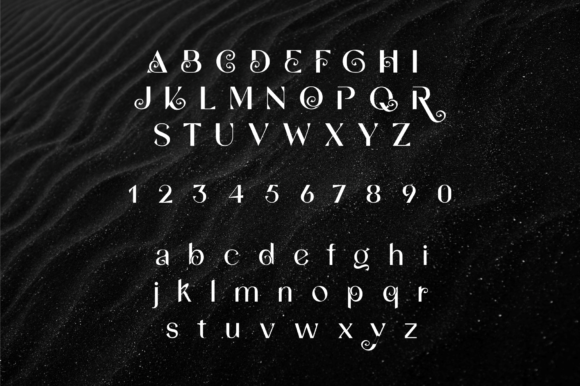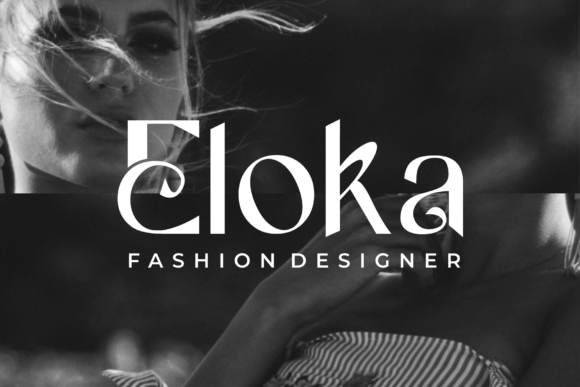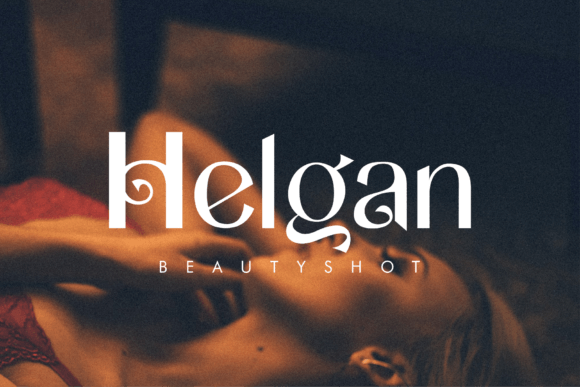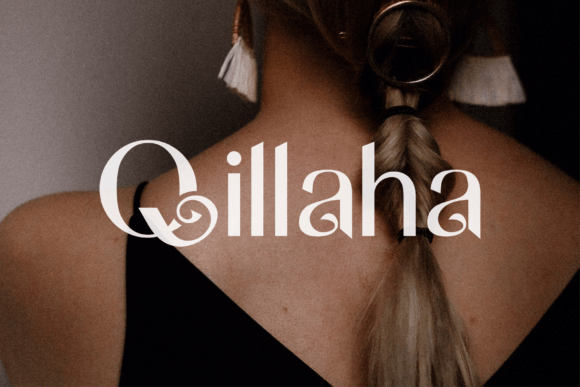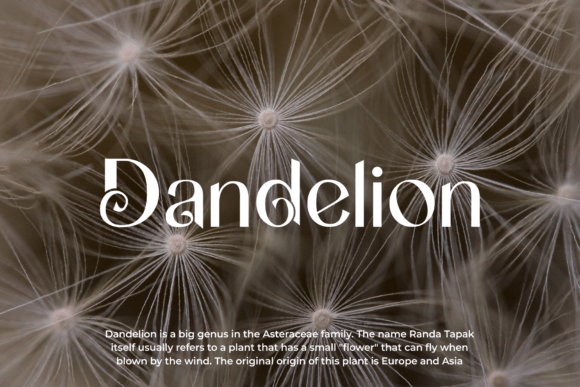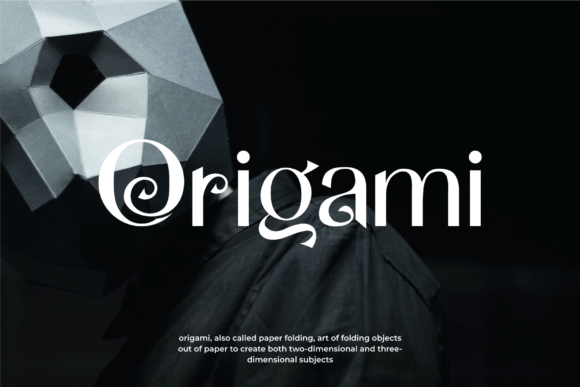
Bugaeil Font: Elevate Your Designs with Elegance
In the world of typography, a font can make or break a design. For those seeking an elegant and versatile typeface, look no further than Bugaeil Font. This stunning font is perfect for a wide range of projects, from fashion and magazines to logos, branding, and more. In this article, we’ll dive into the world of Bugaeil Font and explore its features, uses, and benefits for designers and crafters.
What is Bugaeil Font?
Bugaeil Font is a beautiful, elegant typeface designed to add a touch of sophistication to any project. Its sleek lines, refined curves, and balanced proportions make it an ideal choice for designers seeking a font that exudes luxury and refinement. Whether you’re working on a high-end fashion brand, a stylish magazine, or a wedding invitation, Bugaeil Font is sure to impress.
Key Features of Bugaeil Font
So, what makes Bugaeil Font so special? Here are just a few of its key features:
- Elegant Design: Bugaeil Font boasts a sleek, modern design that’s perfect for high-end projects.
- Versatility: This font is suitable for a wide range of applications, from logos and branding to magazines, websites, and more.
- High Readability: Bugaeil Font is designed to be easy to read, making it perfect for body text, headlines, and titles.
- Customizable: With its range of weights and styles, Bugaeil Font can be tailored to suit your specific design needs.
Uses for Bugaeil Font
Bugaeil Font is an incredibly versatile typeface that can be used in a wide range of projects, including:
- Fashion: Use Bugaeil Font to create stunning fashion branding, from logos to advertising campaigns.
- Magazines: Add a touch of elegance to your magazine design with Bugaeil Font, perfect for titles, headings, and body text.
- Logos and Branding: Create a lasting impression with Bugaeil Font, ideal for logos, business cards, and corporate branding.
- Photography: Use Bugaeil Font to add a touch of sophistication to your photography, from captions to titles.
- Invitations and Wedding Invitations: Make your invitations and wedding invitations truly special with Bugaeil Font.
- Blog Headers and Posters: Elevate your blog headers and posters with Bugaeil Font, perfect for adding a touch of elegance to your design.
- Advertisements and Postcards: Use Bugaeil Font to create eye-catching advertisements and postcards that will grab attention.
- Books and Websites: Bugaeil Font is also suitable for use in books and websites, adding a touch of sophistication to your content.
So, why should designers and crafters choose Bugaeil Font? Here are just a few benefits:
- Time-Saving: With Bugaeil Font, you can create stunning designs quickly and easily, saving you time and effort.
- Professional Results: Bugaeil Font is designed to produce professional-looking results, perfect for clients who demand the best.
- Ease of Use: This font is incredibly easy to use, even for those with limited design experience.
- Customization Options: With its range of weights and styles, Bugaeil Font can be tailored to suit your specific design needs.
In conclusion, Bugaeil Font is a stunning, elegant typeface that’s perfect for designers and crafters seeking to add a touch of sophistication to their projects. With its versatility, readability, and customization options, Bugaeil Font is an excellent choice for a wide range of applications. Whether you’re working on a fashion brand, magazine, logo, or wedding invitation, Bugaeil Font is sure to impress. So why wait? Download Bugaeil Font today and elevate your designs to the next level!